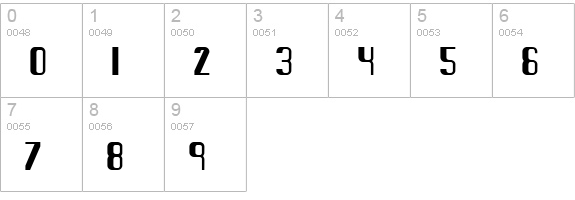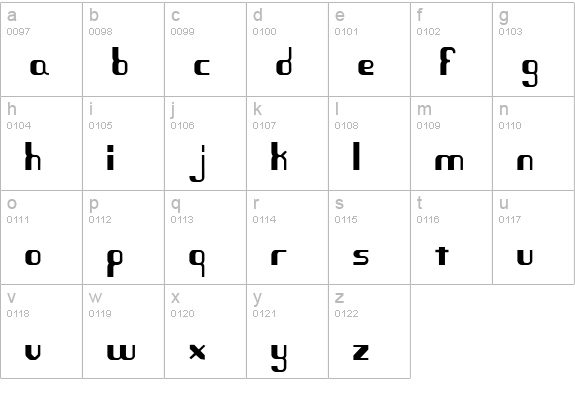
Quandary -BRK- Font Details
Quandary -BRK- font is a truly exceptional typeface that effortlessly combines elegance with a touch of edginess. With its bold and striking design, this font will captivate your audience and make a lasting impression. The Quandary -BRK- font is a versatile choice for a wide range of design projects, whether it be for branding, advertising, or creative endeavors. Its unique letterforms and subtle yet impactful details make it a standout choice that will elevate any composition. What makes Quandary -BRK- font even more appealing is the fact that it is freely available to download at FontsMarket.com. This means that you can easily access this remarkable font without any cost, making it an incredible value for designers and creatives alike. With Quandary -BRK- font, you have the freedom to explore endless possibilities and unleash your creativity. Its clean lines and distinct character will make your text come alive, adding a sense of sophistication and style to your designs. Whether you are working on a logo, website, or print materials, Quandary -BRK- font will ensure that your message is delivered with impact and professionalism. Its wide range of weights and styles allow for versatility, allowing you to find the perfect fit for your project. Experience the power and beauty of Quandary -BRK- font for yourself by downloading it for free at FontsMarket.com. Don't miss out on this incredible opportunity to enhance your designs with a font that is both visually stunning and readily accessible. Elevate your projects and leave a lasting impression with Quandary -BRK- font.